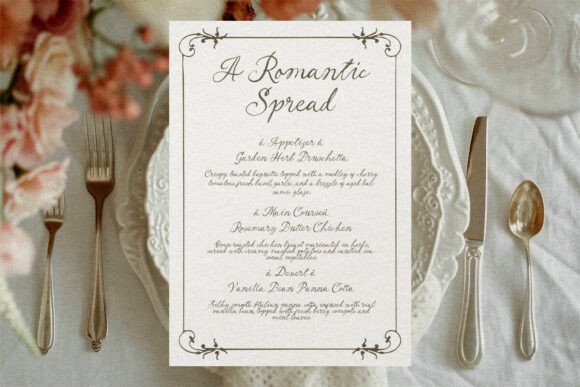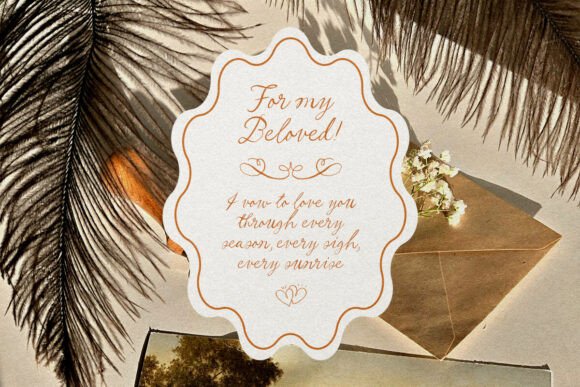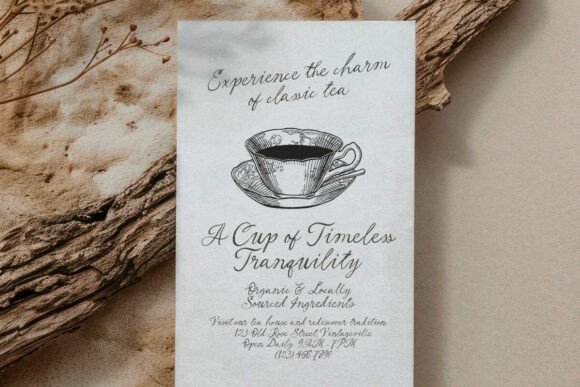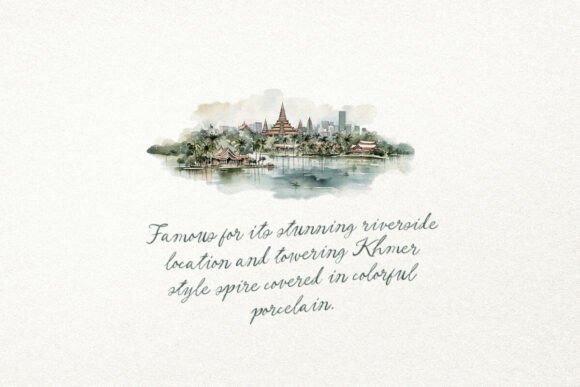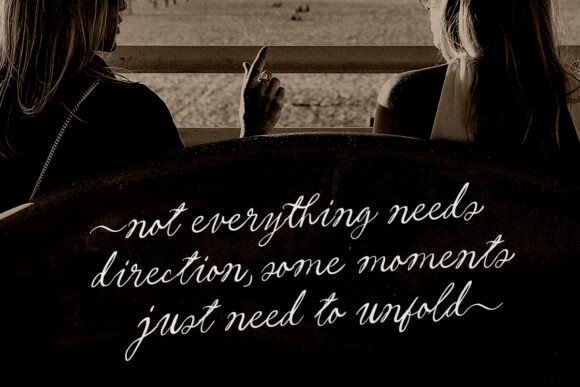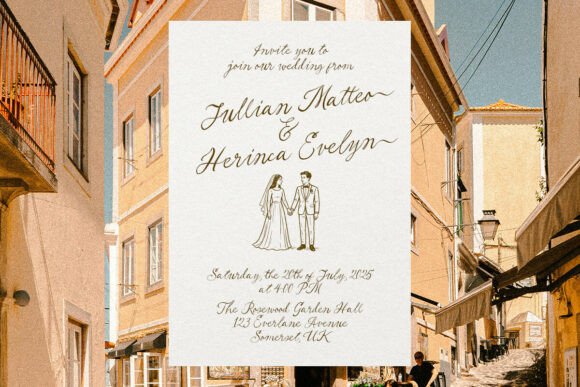
Introducing Antelopia Font: A Vintage-Inspired Handwritten Script
Are you looking for a unique and eye-catching font to elevate your designs? Look no further than Antelopia Font, a rough handwritten script that exudes a vintage and old-world charm. This versatile font is perfect for a variety of creative projects, from wedding invitations and quotes to logotypes and more.
The Characteristics of Antelopia Font
Antelopia Font boasts a distinctive, hand-crafted look that is sure to add a touch of personality to your designs. Its rough, handwritten texture gives it a organic and authentic feel, reminiscent of traditional pen-and-paper scripts. The font’s vintage aesthetic makes it an excellent choice for projects that require a classic, timeless look.
Key Features of Antelopia Font
- Handwritten Script: Antelopia Font features a unique, handwritten script that is both elegant and rustic.
- Vintage Look: The font’s distressed texture and classic letterforms evoke a sense of nostalgia and tradition.
- Initial and End Swashes: Antelopia Font comes with beautiful initial and end swashes, which add a touch of sophistication and flair to your designs.
- Versatile: This font is suitable for a wide range of applications, from wedding invitations and quotes to logotypes and branding materials.
Uses for Antelopia Font
Antelopia Font is an incredibly versatile font that can be used for a variety of creative projects. Here are some ideas to get you started:
- Wedding Invitations: Add a touch of elegance and sophistication to your wedding invitations with Antelopia Font.
- Quotes and Posters: Use Antelopia Font to create eye-catching quotes and posters that showcase your favorite phrases or lyrics.
- Logotypes and Branding: Antelopia Font is an excellent choice for logotypes and branding materials, such as business cards, letterheads, and packaging.
- Stationery and Gift Tags: Add a personal touch to your stationery and gift tags with Antelopia Font’s charming handwritten script.
Tips for Using Antelopia Font
To get the most out of Antelopia Font, here are a few tips to keep in mind:
- Experiment with Swashes: Antelopia Font’s initial and end swashes are a great way to add visual interest to your designs. Experiment with different swash combinations to find the perfect look.
- Pair with Other Fonts: Antelopia Font pairs well with a variety of other fonts, from serif and sans-serif fonts to script and display fonts. Experiment with different pairings to find the perfect combination.
- Use for Headings and Titles: Antelopia Font is perfect for headings and titles, where its elegant script and vintage aesthetic can really shine.
Antelopia Font is a unique and versatile font that is sure to add a touch of personality and elegance to your designs. With its vintage aesthetic, handwritten script, and initial and end swashes, this font is perfect for a wide range of creative projects. Whether you’re a designer, crafter, or DIY enthusiast, Antelopia Font is an excellent choice for anyone looking to add a little extra flair to their work.